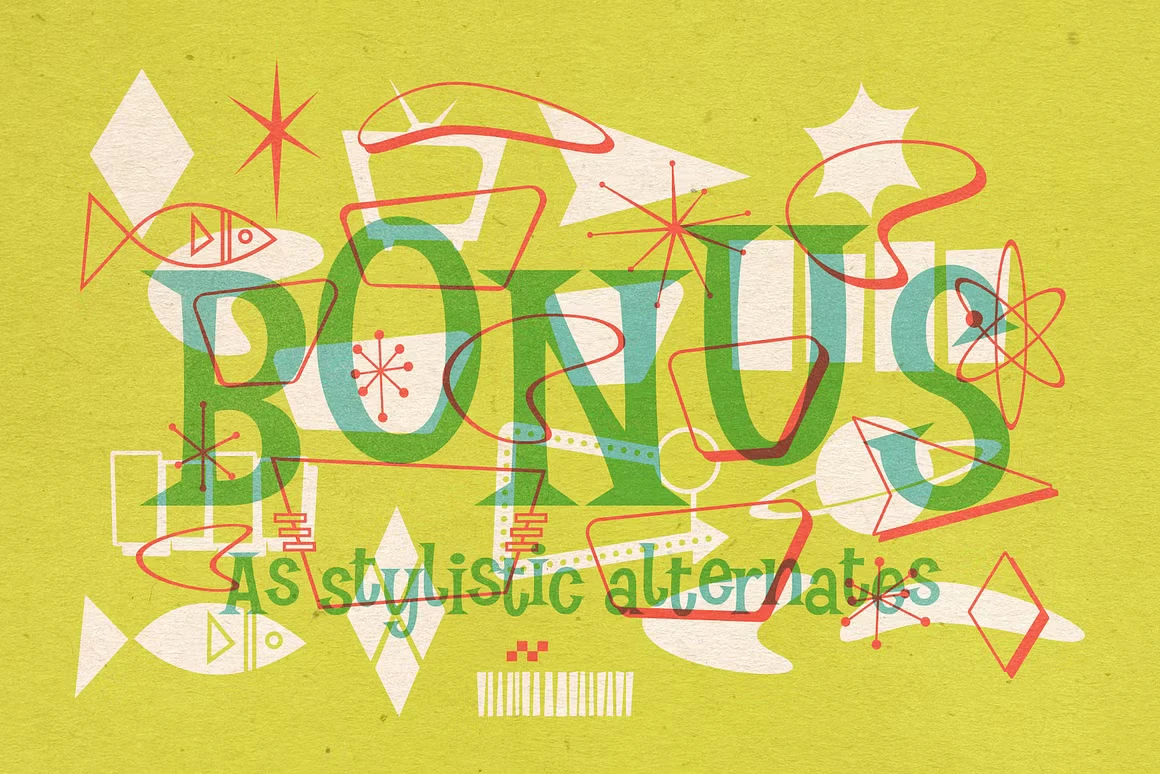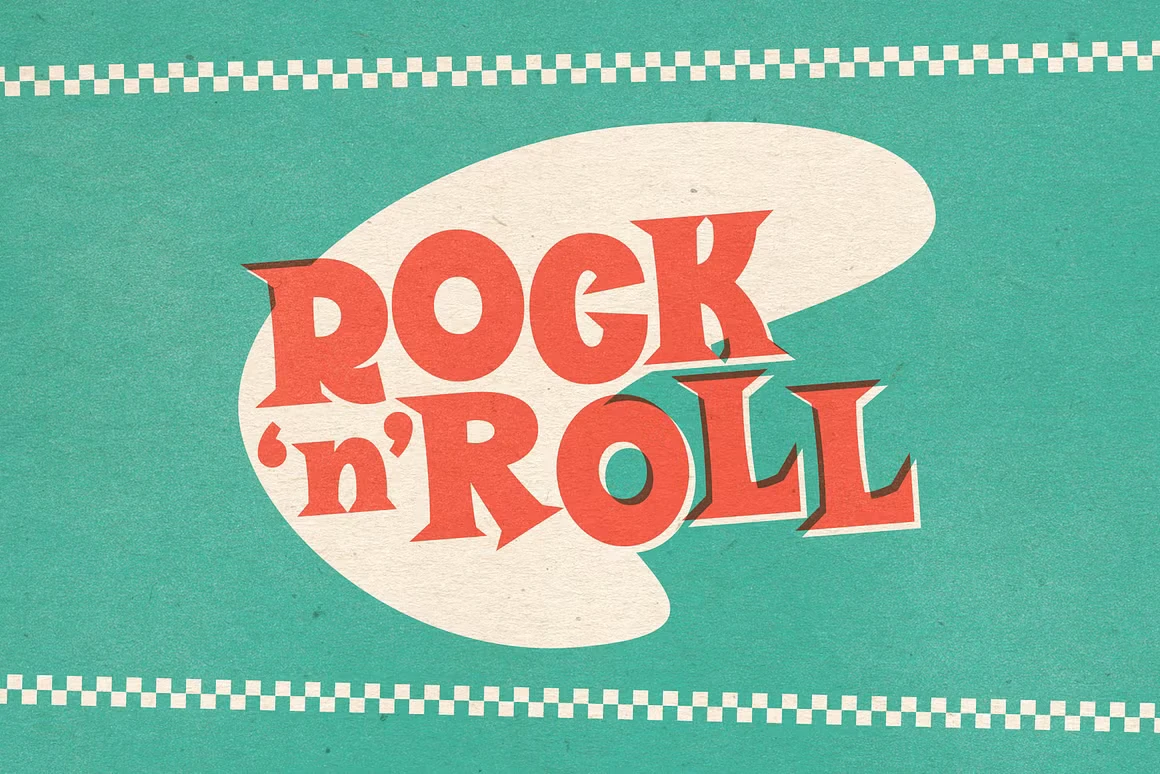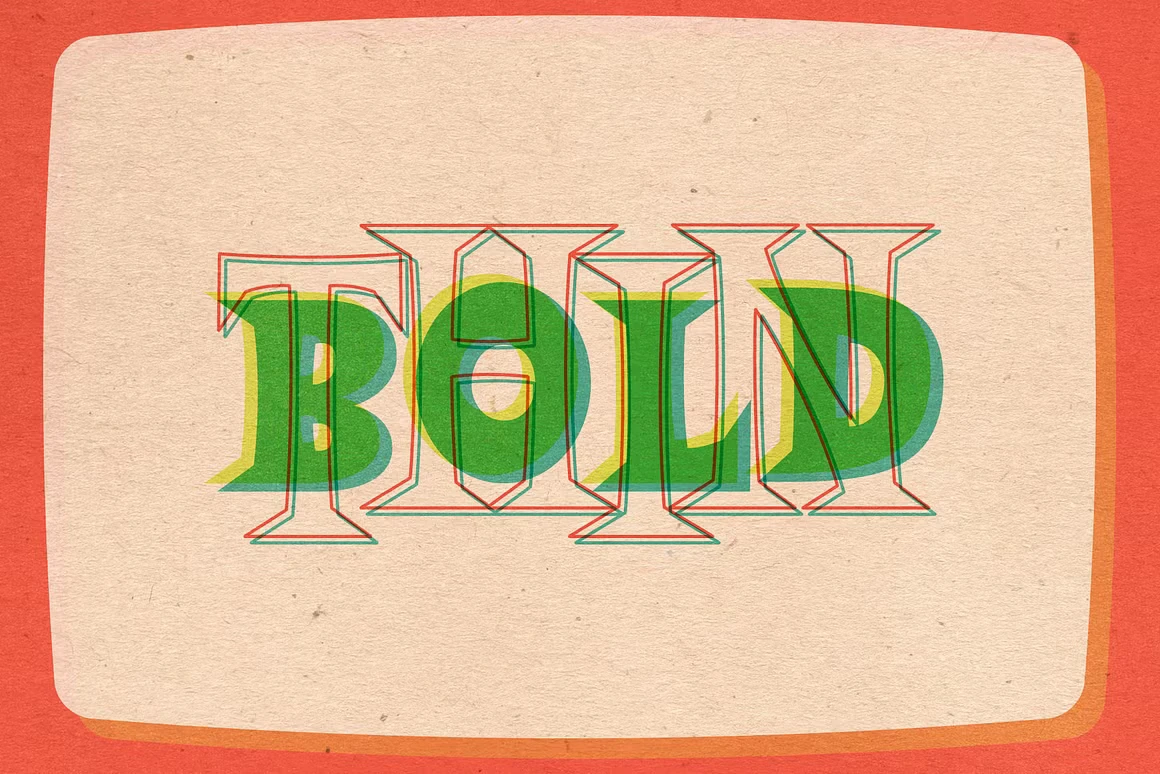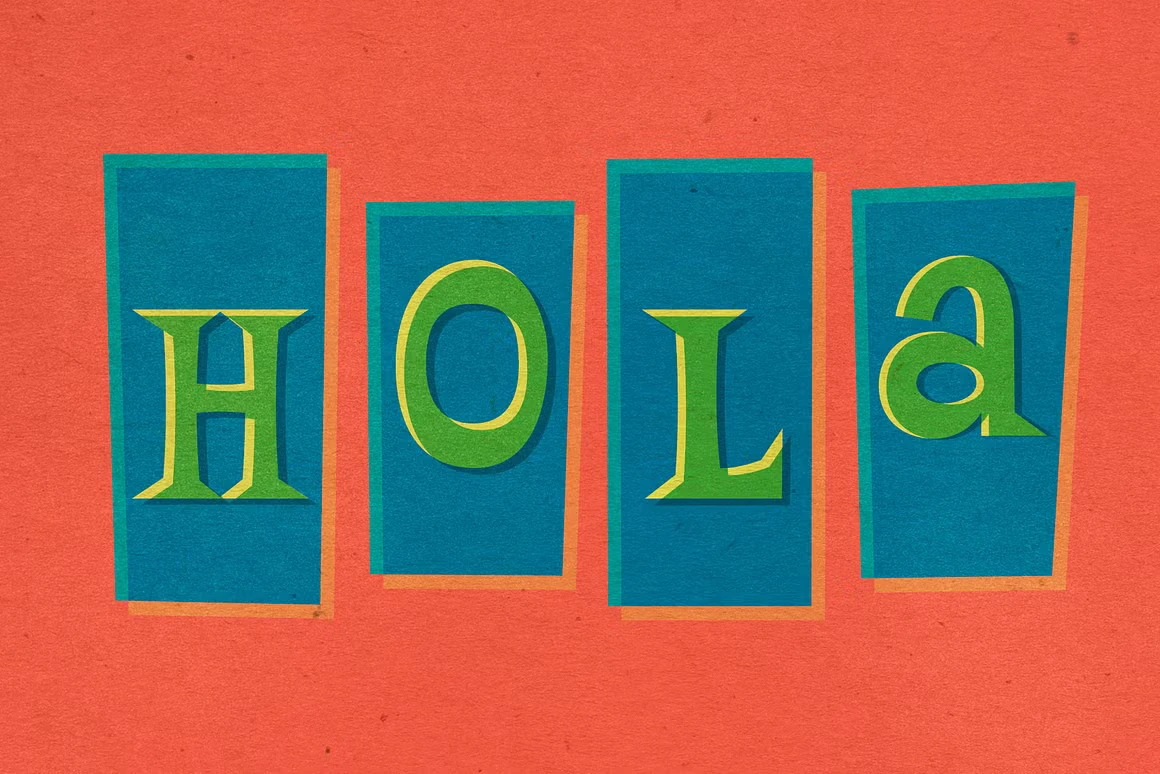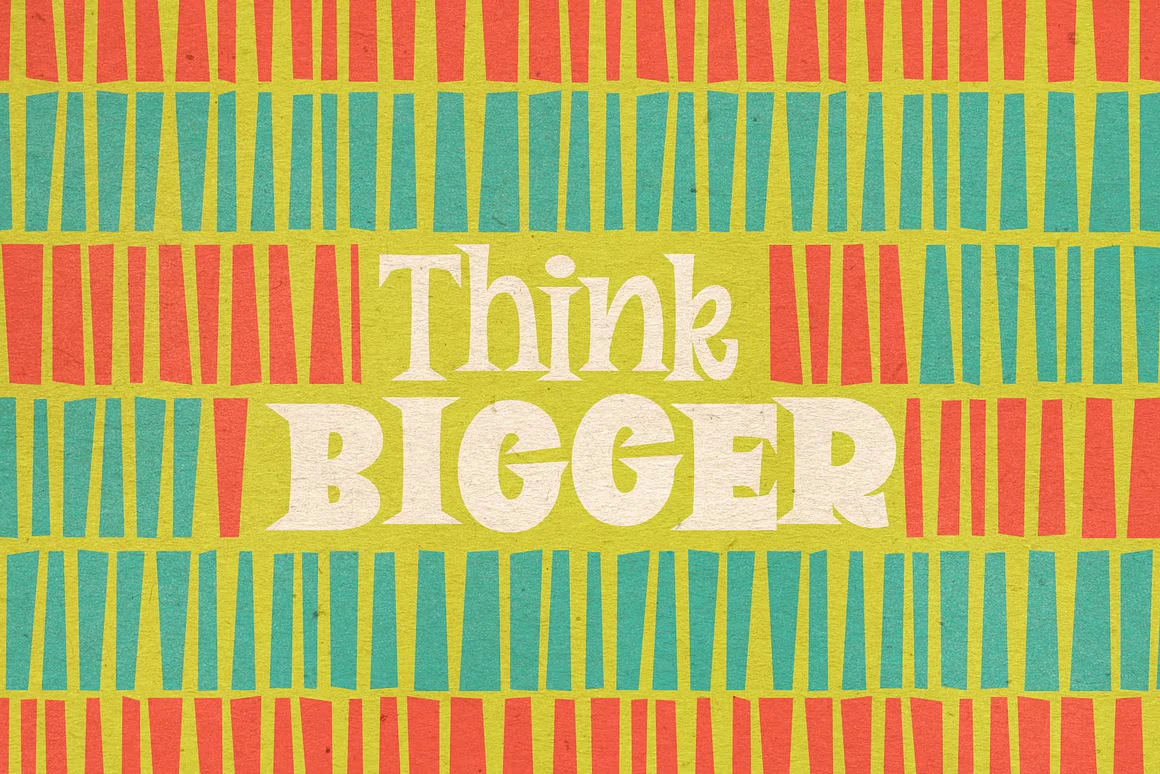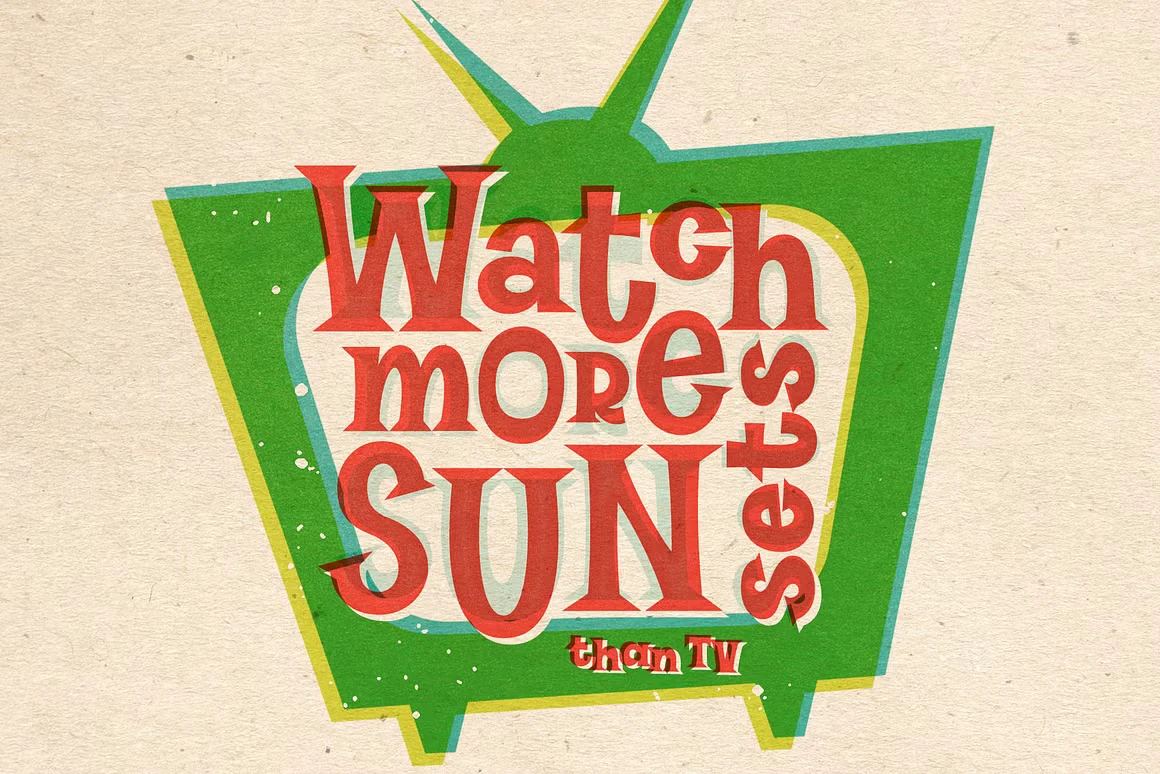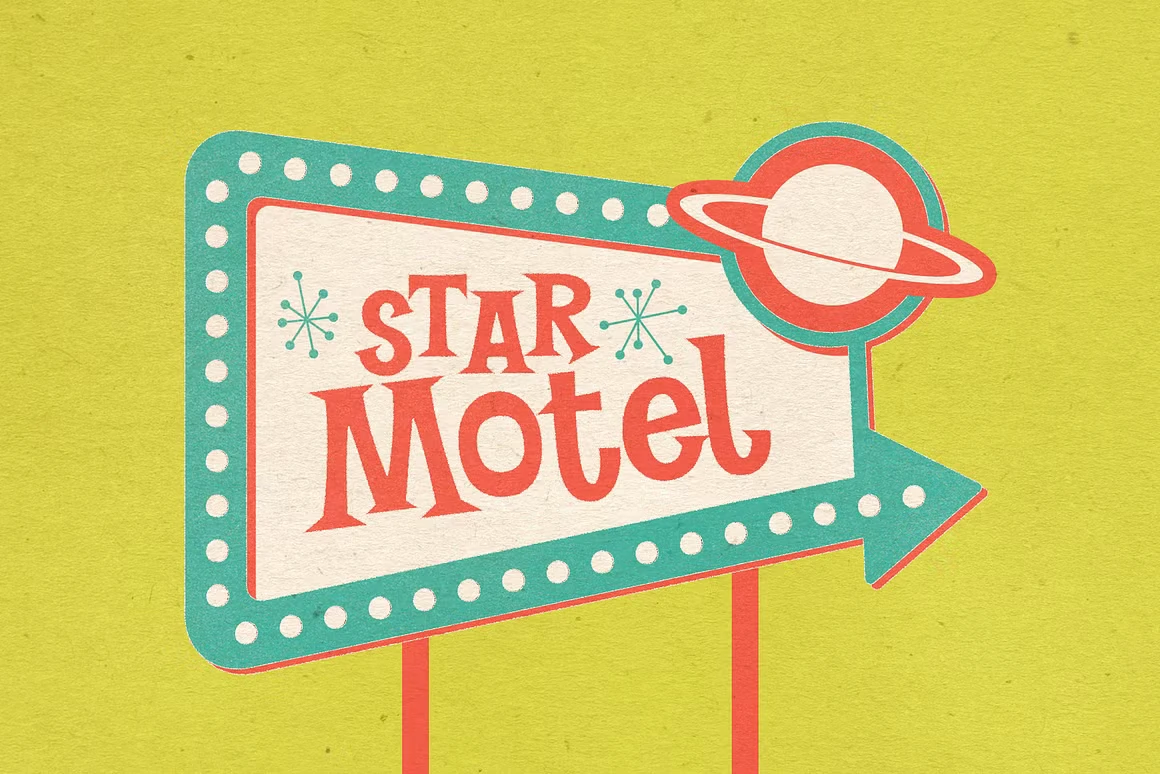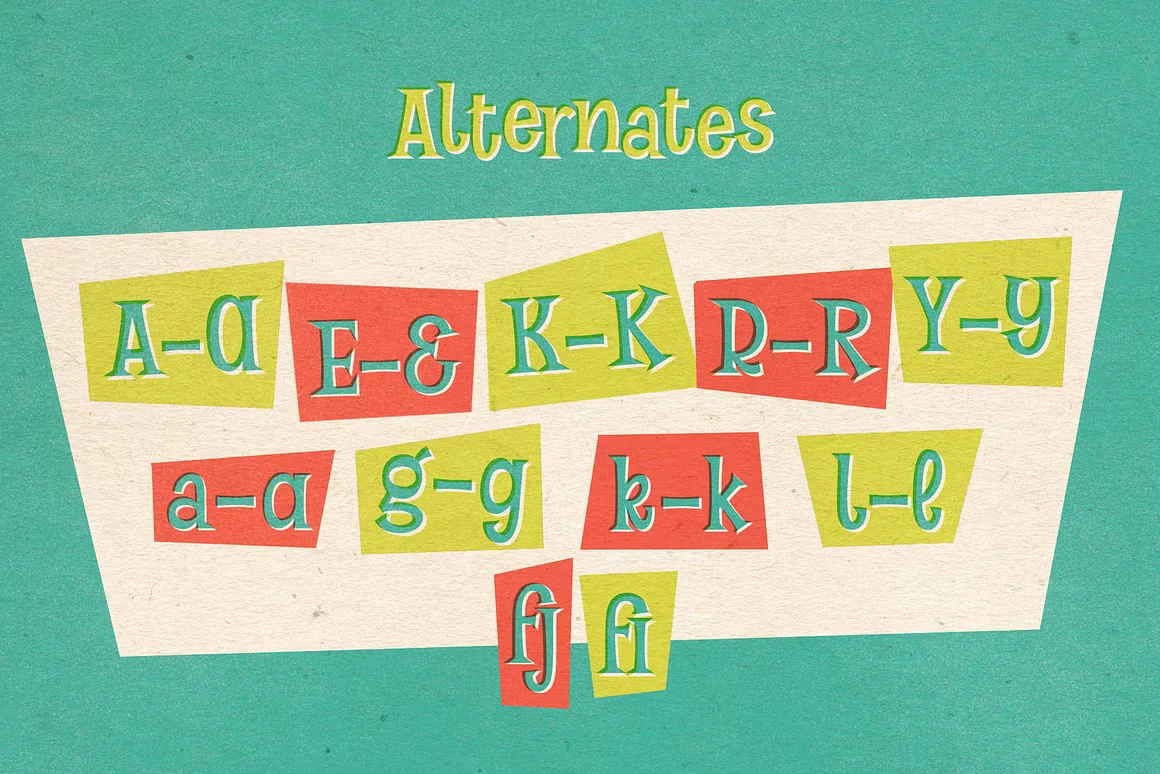
Halau Serif Font Family
Halau Serif is a funky casual font family bursting with midcentury personality. Inspired by 1960s summer graphics, it channels the carefree energy of beach days, retro comedies, and vintage signage. With a cartoonish style and playful curves, it brings warmth and charm to any design.
Available in Thin, Light, Regular, Medium, and Bold, Halau Serif is a great fit for displays, signage, logos, posters, marketing materials, apparel, websites, and apps with a retro flair. Includes fractions, standard and discretionary ligatures, superscript, and alternate letterforms. Also features fun midcentury graphic elements like sparkles, TV screens, and classic shapes for added versatility. Designed to deliver a bold and breezy vintage look across creative projects.
• Common Ligatures
• Discretionary Ligatures
• Fractions
• Stylistic Alternates
• Stylistic Sets
• Superscript